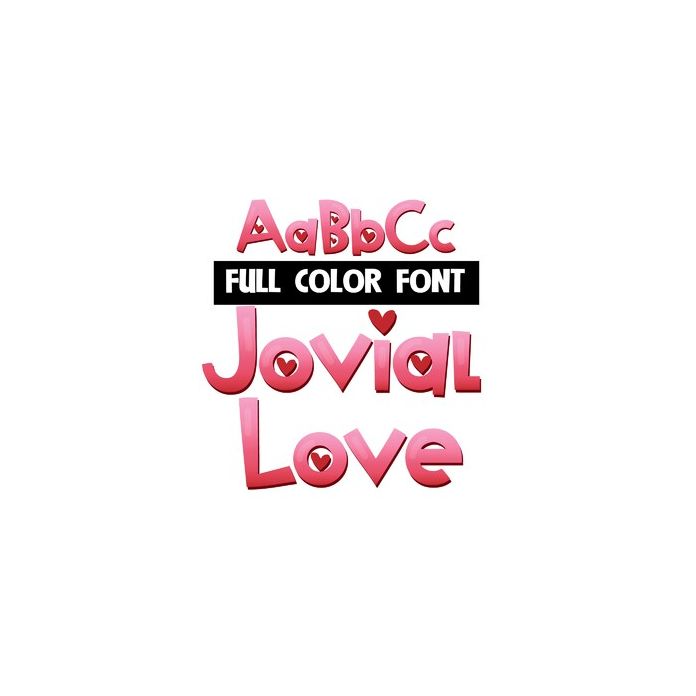
This full-color font features a gradient of pinks and red and hearts. This font works best for titles, displays, posters and more. Please note color fonts will show as black in non compatible programs. This font type is compatible with Silhouette Studio.